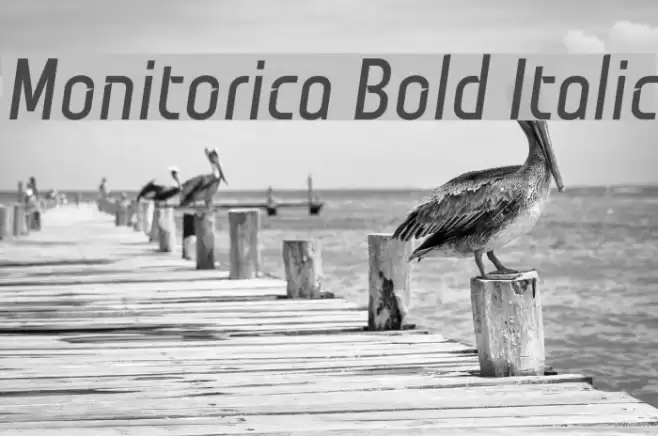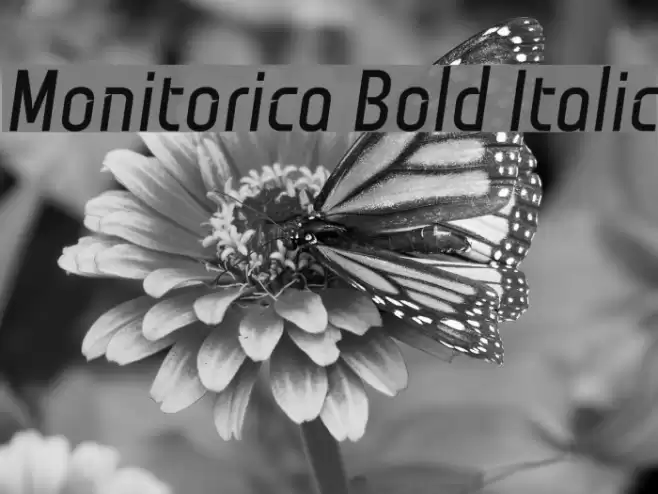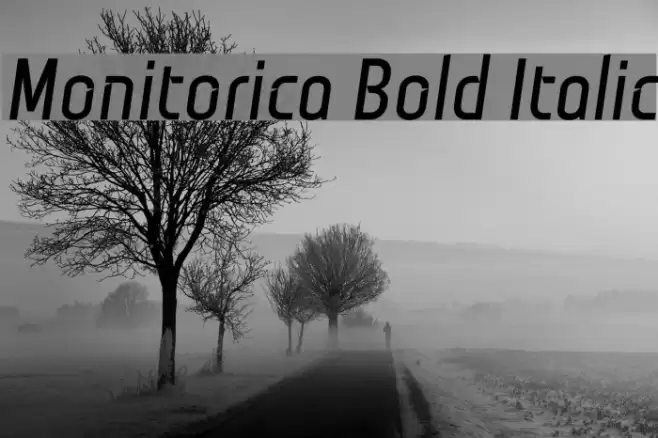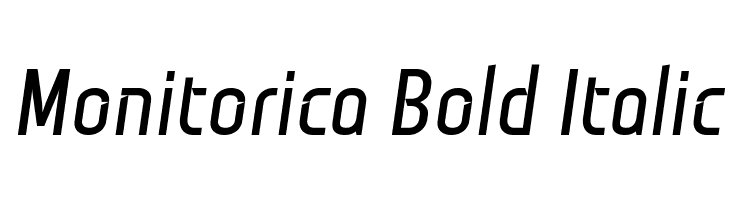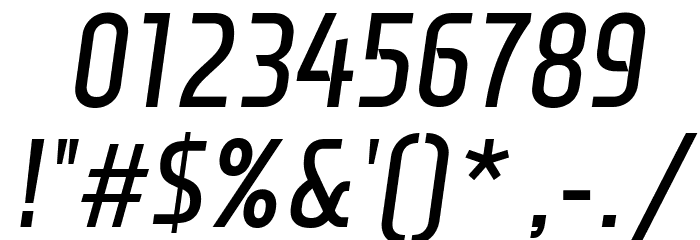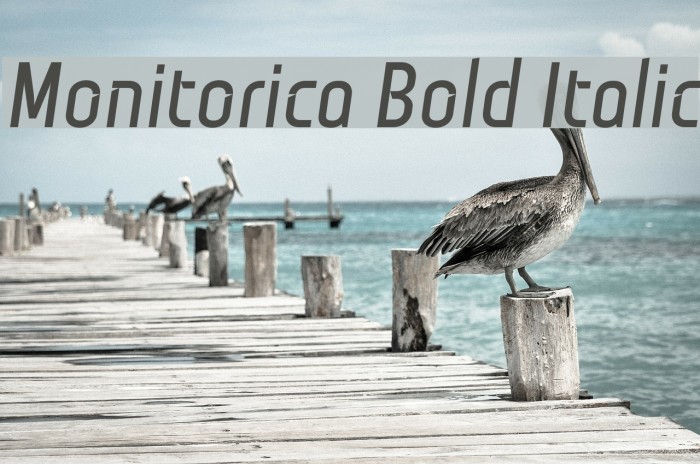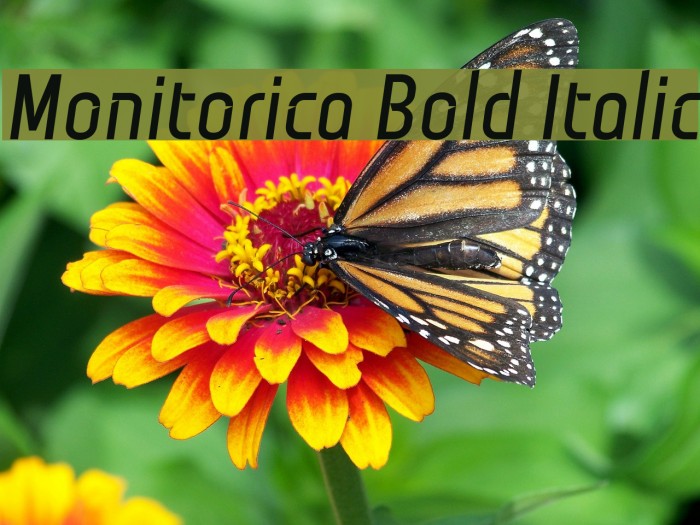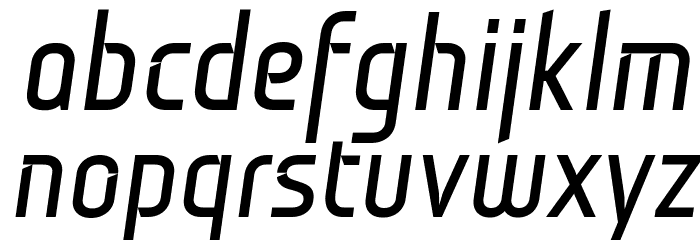
Monitorica Bold Italic Font
Monitorica Bold Italic Description
This font exhibits a modern and sleek design with a bold and italicized style. The characters are slightly condensed, giving a streamlined appearance. The uppercase and lowercase letters maintain a consistent slant, enhancing the italic effect. The numerals are clear and distinct, matching the overall boldness of the font. Special characters are well-integrated, maintaining the font's cohesive look. The strokes are uniform, with medium contrast, providing a balanced and legible appearance suitable for various applications.
A modern, bold, and italicized font with a sleek, condensed design from Uncategorized fonts.
- Proposed Projects: Ideal for branding, advertising, and headlines where a modern and bold statement is needed.
- Use Case: Headlines, Logos, Branding